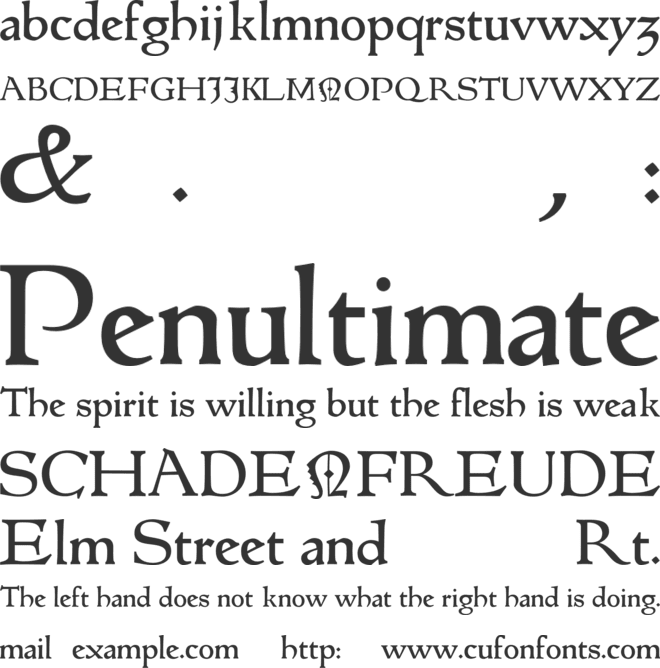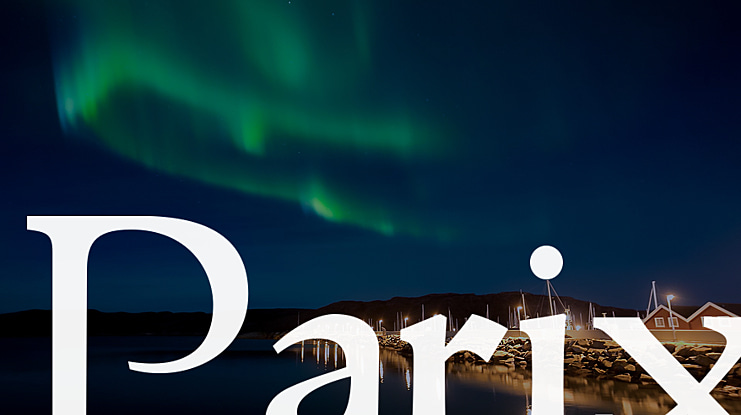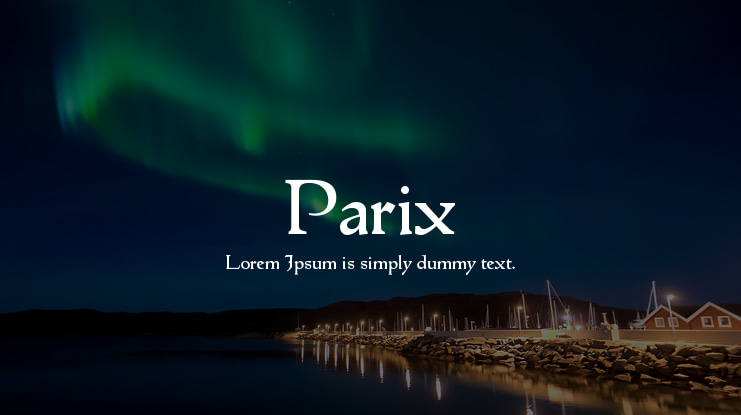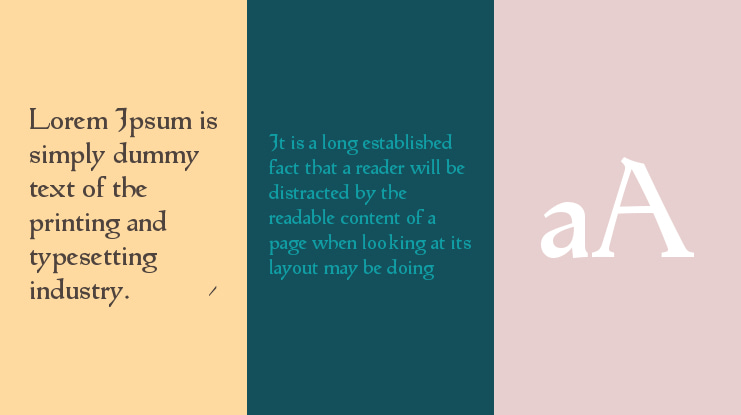
Parix Font
Alexis Faudot, Rafael Ribas
Parix 111R, Hybrid first used in Toulouse by Johann Parix for Rodericus Zamorensisâ Speculum vitae humanae, around 1475 (exact date unknown) and used until 1481.Type design workshop at isdaT Toulouse and Bibliothèque municipale de Toulouse, February 2018.Source: Speculum vitae humanae, Rodericus Zamorensis, 1475 (?).Workshop participants: Benoît Guimier, Clémentine Campredon, Erouane Savignac, Juliette Flécheux, Lori Marsala, Louis Hauboldt, Louise Turner, Lucie Elmaleh, Maurine Clain, Maximilian Tranduc, Mihail Zhelyazkov, Yasmeen Lefebvre, Emmanuelle Colombé, Zoé Xhignesse, Milena Ducoudray, Mila Benoit Lacan, Rafael Ribas, Alexis Faudot.Font designed and produced by Alexis Faudot and Rafael Ribas, directed by Jérôme Knebusch, Atelier National de Recherche Typographqiue (ANRT), Nancy.Copyright (c) 2019 ANRT. All rights reserved.